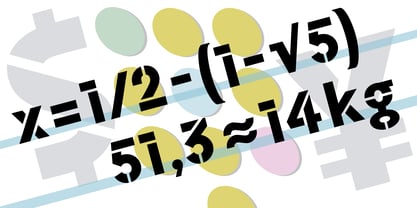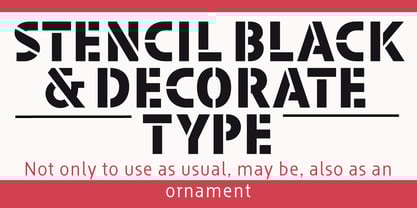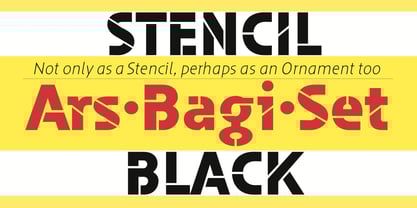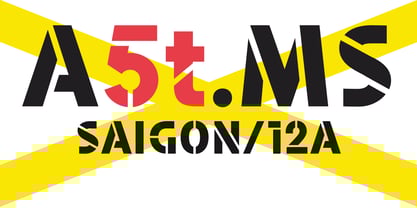
Jackipur Stencil
Jackipur Stencil Black is intended as a display typeface with the feel of a stenciled font. Since many of the gaps aren't based on technical necessity, a play of shapes is created—especially in the lowercase letters—that may serve a decorative purpose. A playful play on effect.